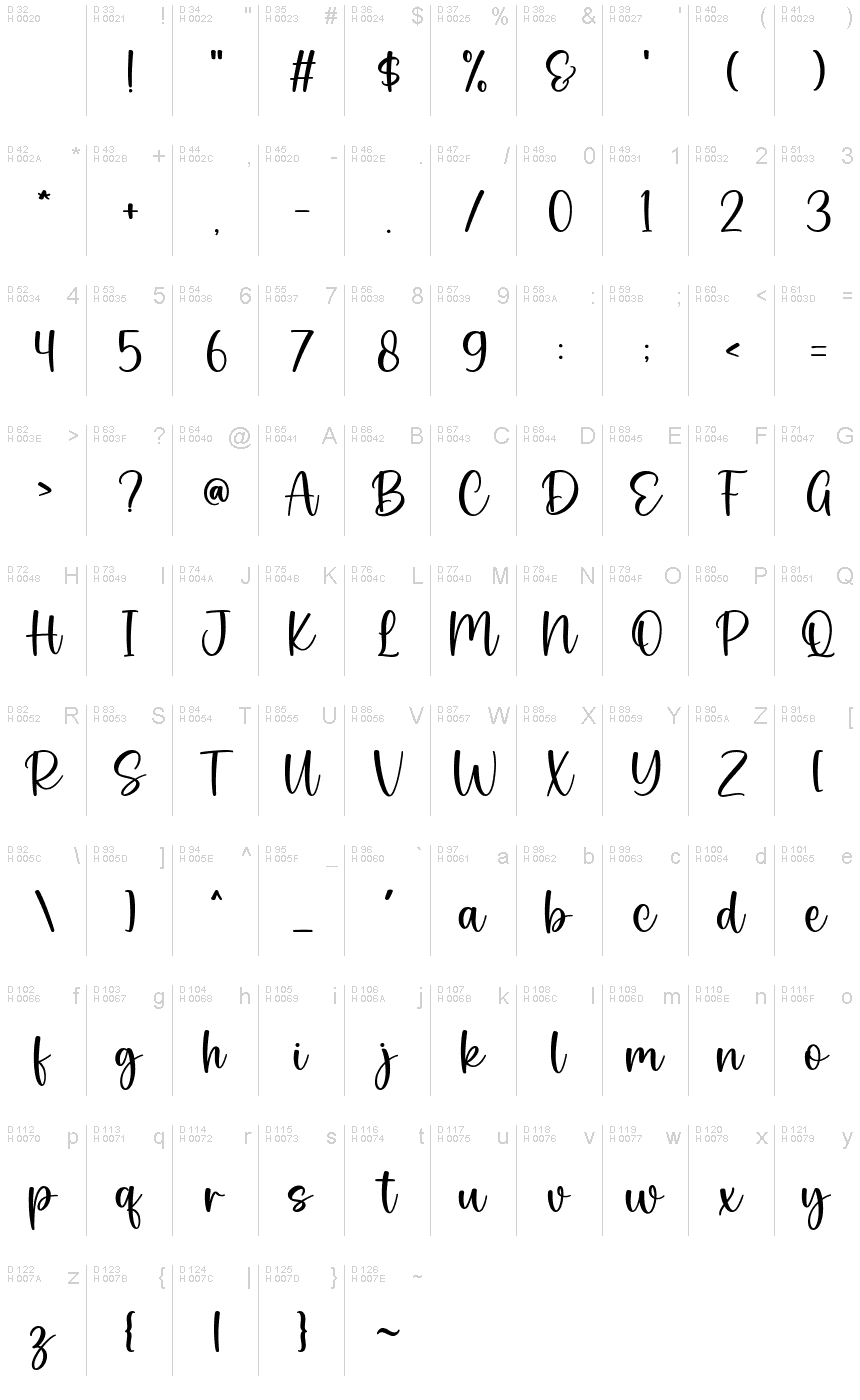
Brithany by Nirmala Creative exudes a charming, semi-light presence that captures the essence of handwritten authenticity.
Perfect for designers aiming to inject personality and warmth into their work, this font stands out with its adorable quirks and approachable elegance. Whether crafting whimsical logos, engaging branding materials, or memorable quotes, Brithany's PUA-encoded versatility ensures seamless access to all its delightful glyphs and swashes.
Its cute handwritten style promises to bring a touch of bespoke sophistication to a wide array of creative projects.